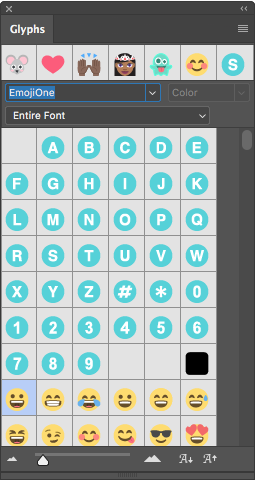
Notes:
- The single-person characters or body parts emojis can be matched with any of the skin colored characters only once.
- Composite glyphs are a font feature. Not all OpenType SVG fonts let you combine characters to create composite glyphs.
- You can decompose some EmojiOne composites into their constituent characters.